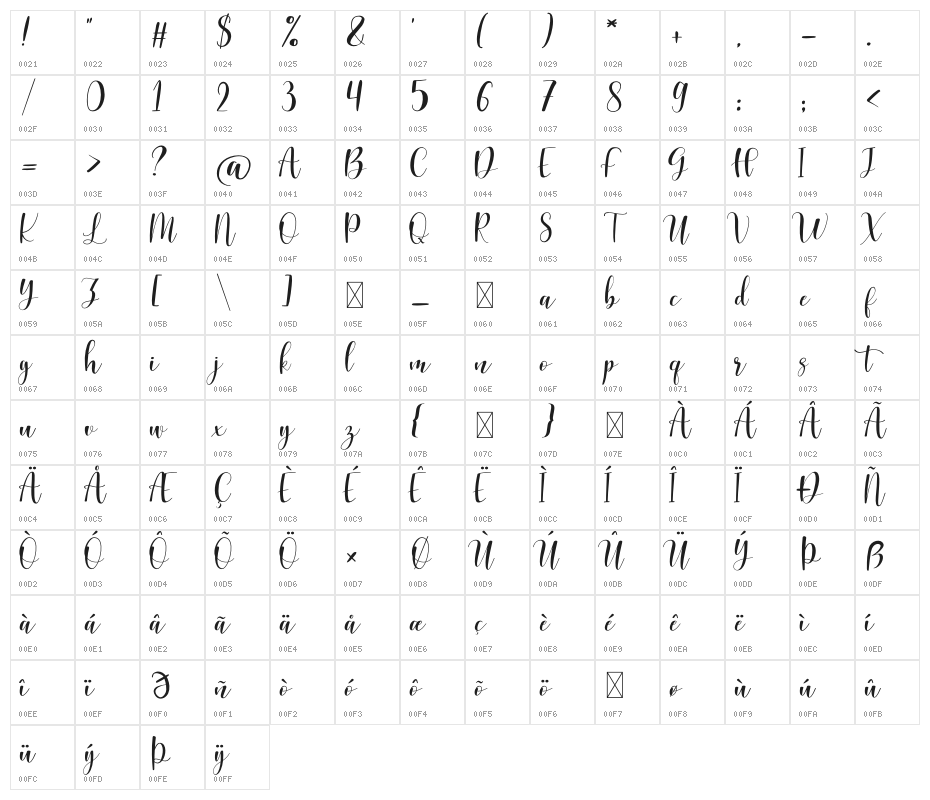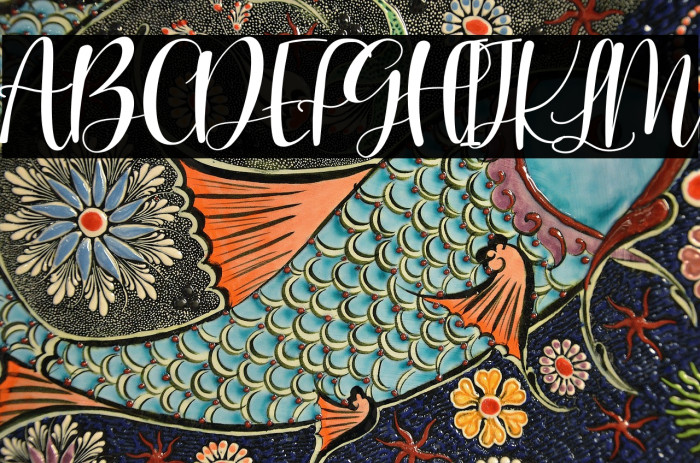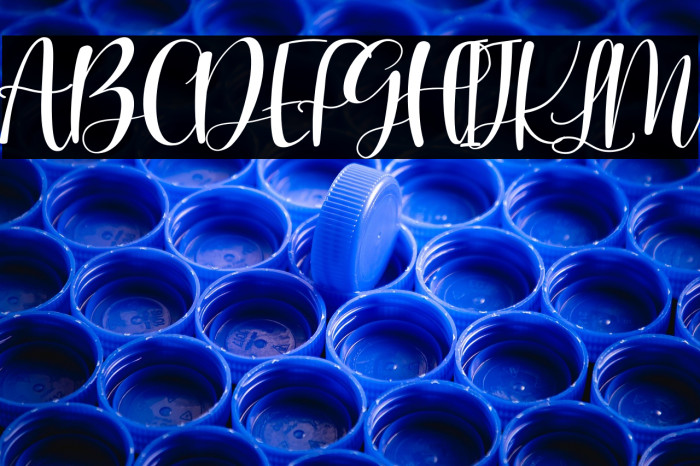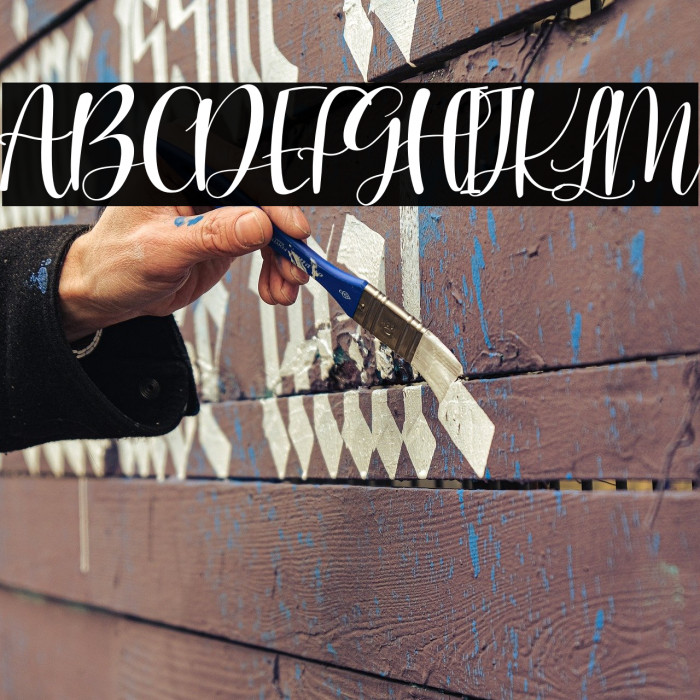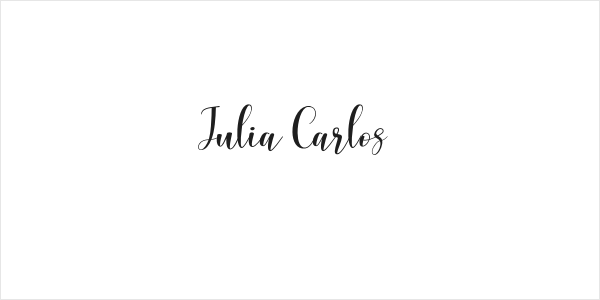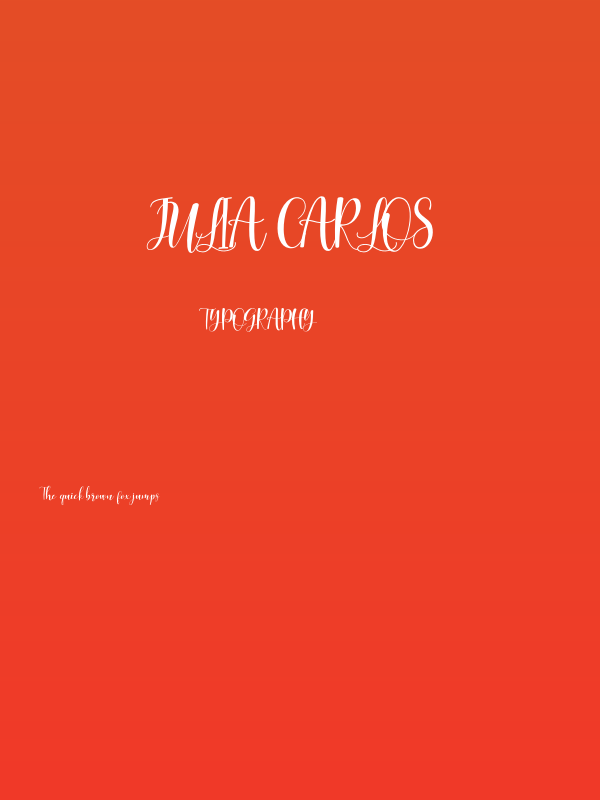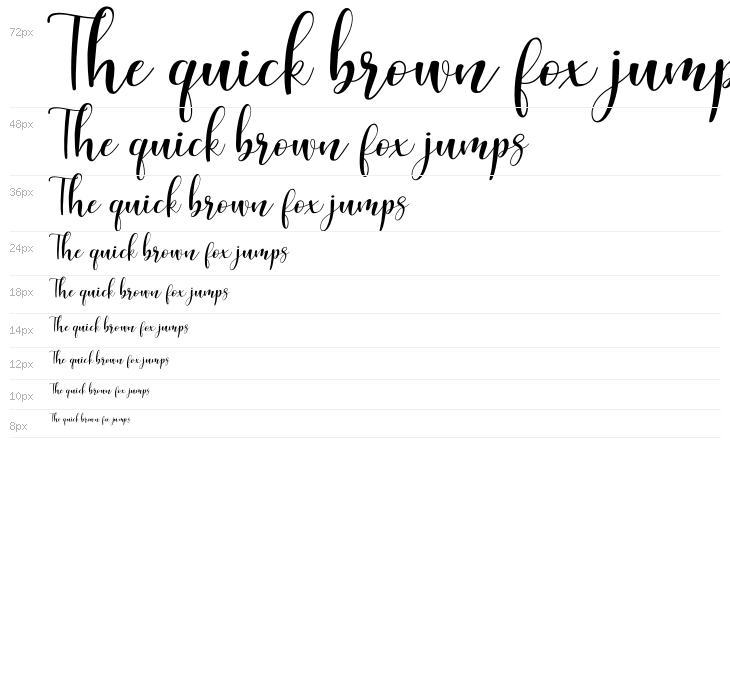
Julia Carlos Font
Julia Carlos Description
This font exudes elegance and sophistication with its flowing, cursive style. The letters are intricately designed with high contrast between thick and thin strokes, giving it a dynamic and lively appearance. The uppercase letters are particularly ornate, featuring elaborate swashes and loops that add a touch of flair. The lowercase letters maintain a consistent style, with smooth curves and a graceful flow. The numerals are stylishly crafted, complementing the overall aesthetic. Special characters are included, each designed with the same attention to detail, making this font versatile for various applications.